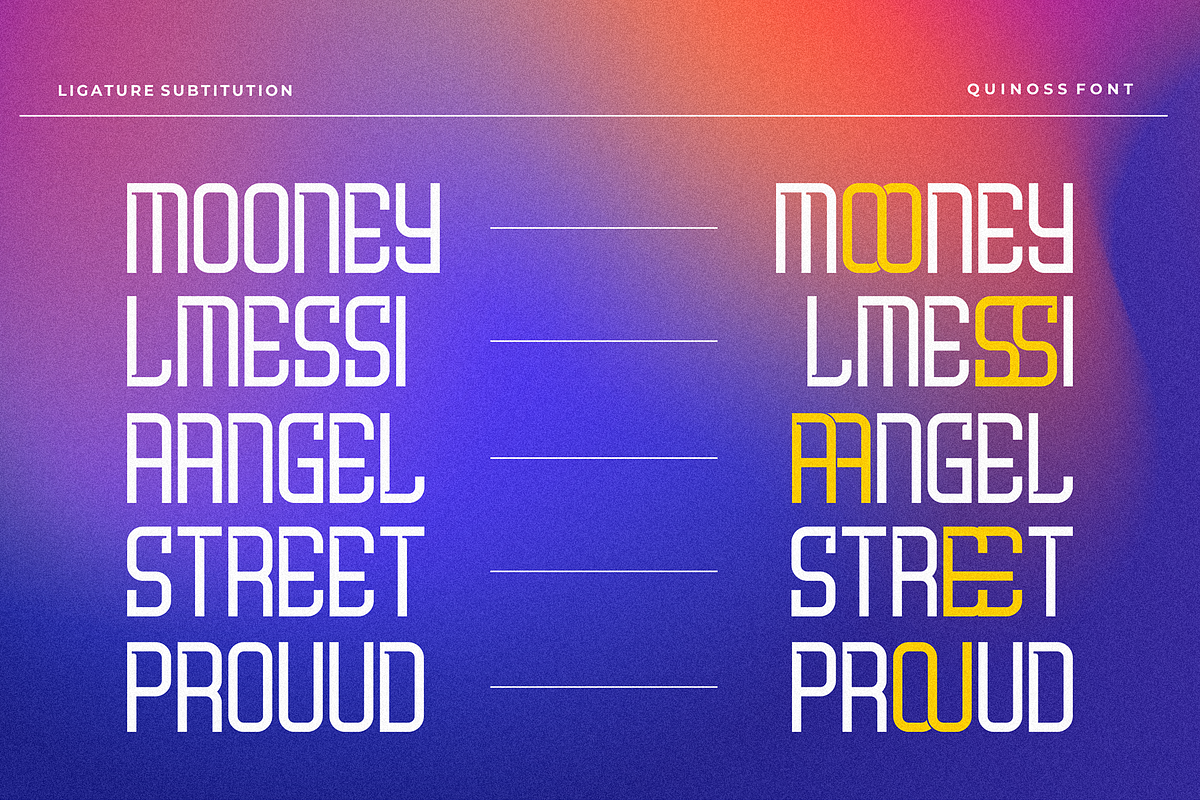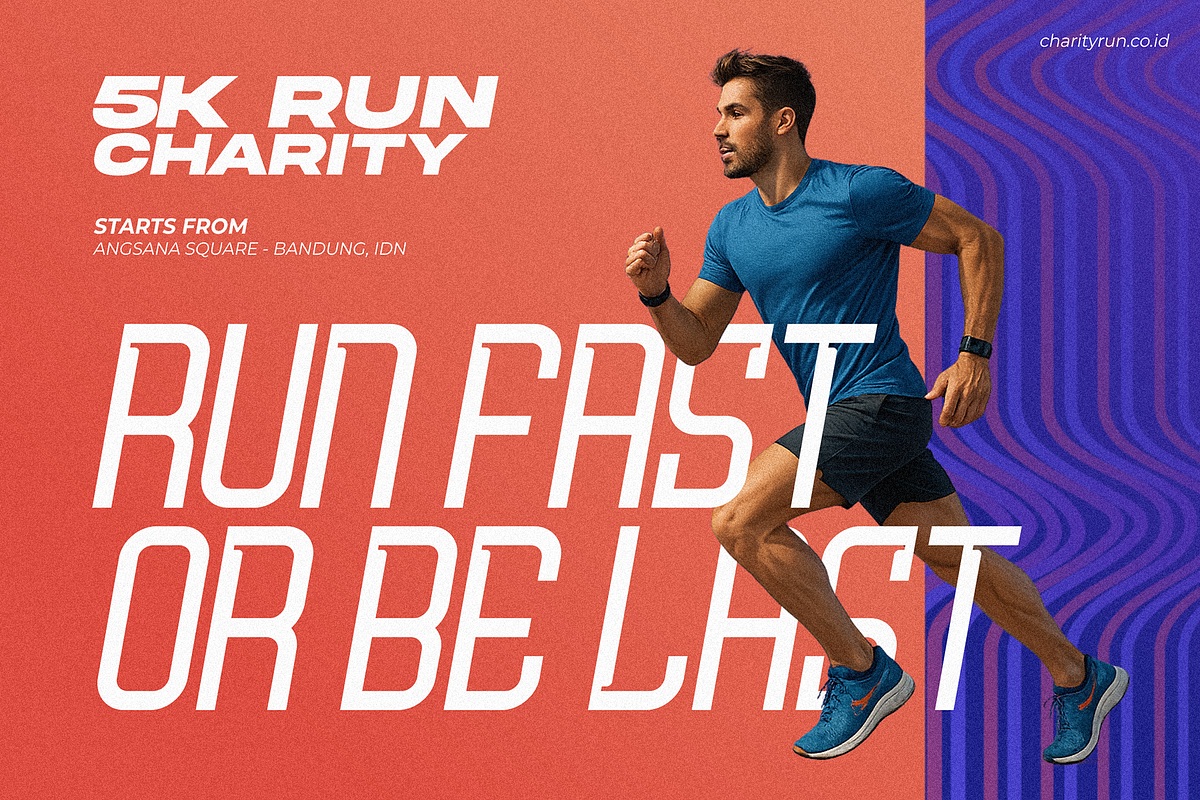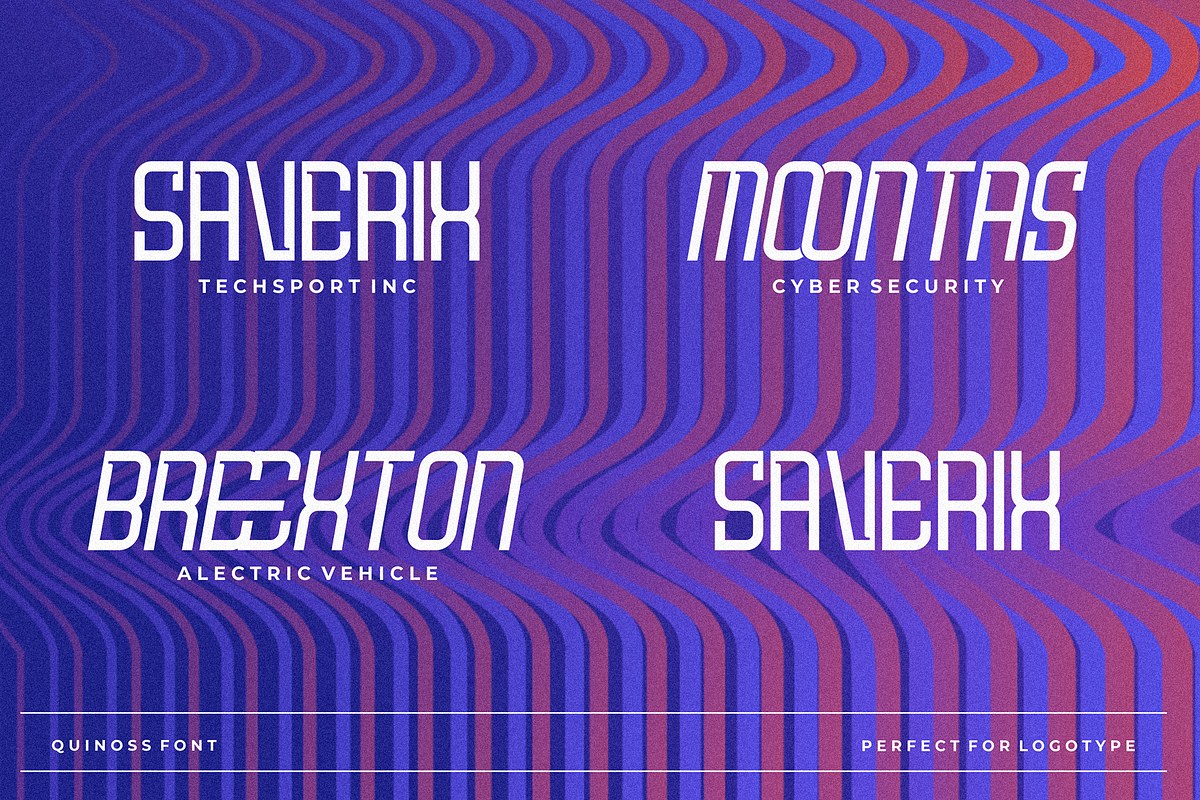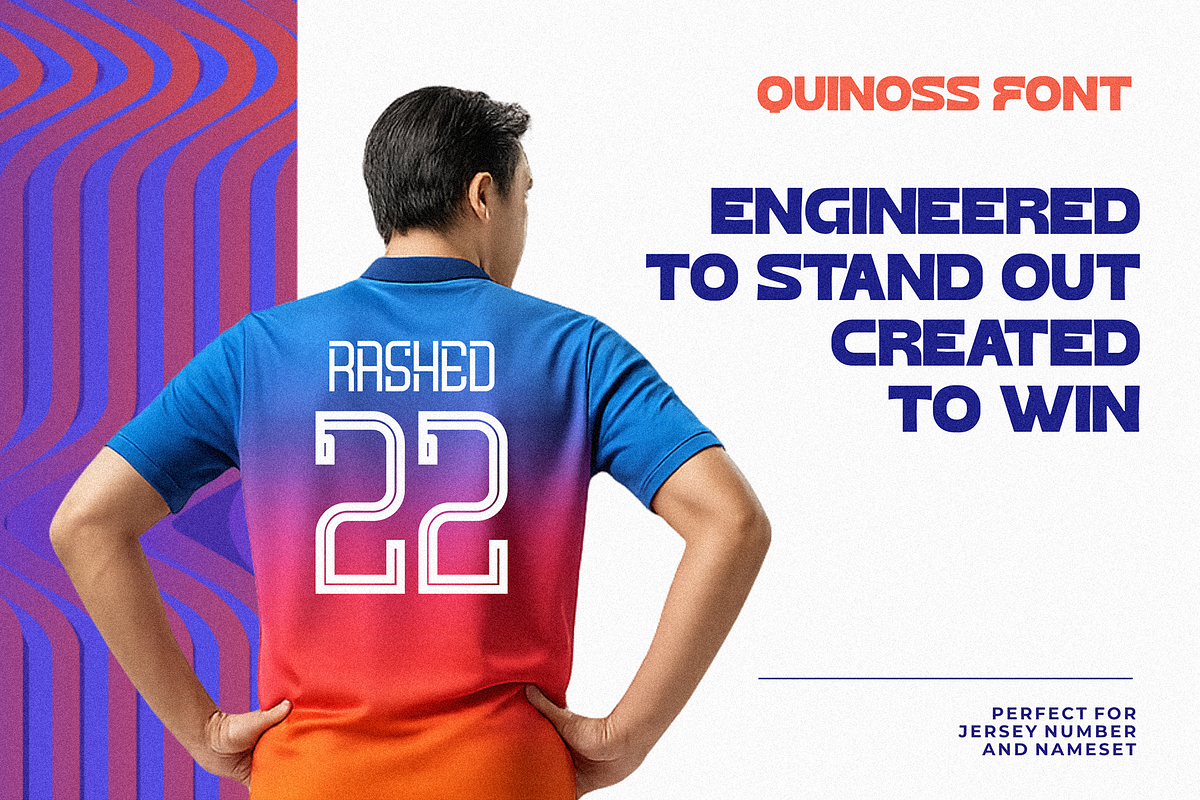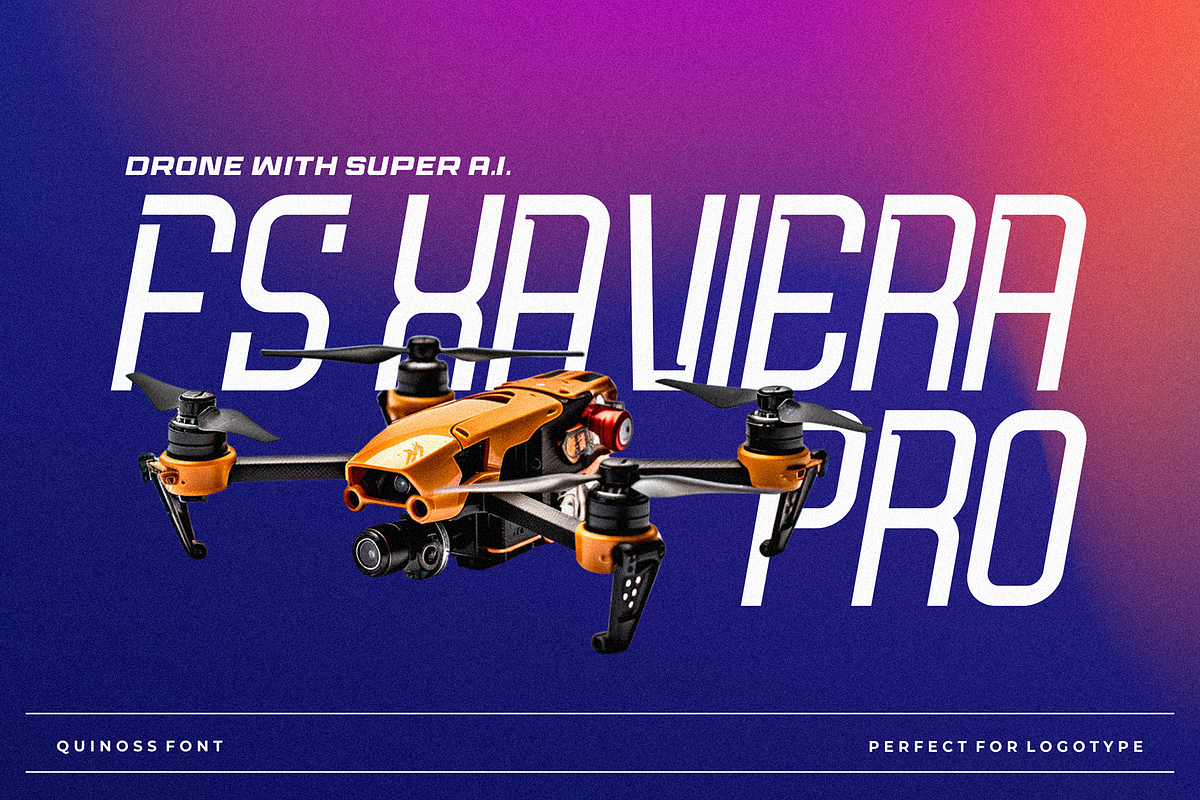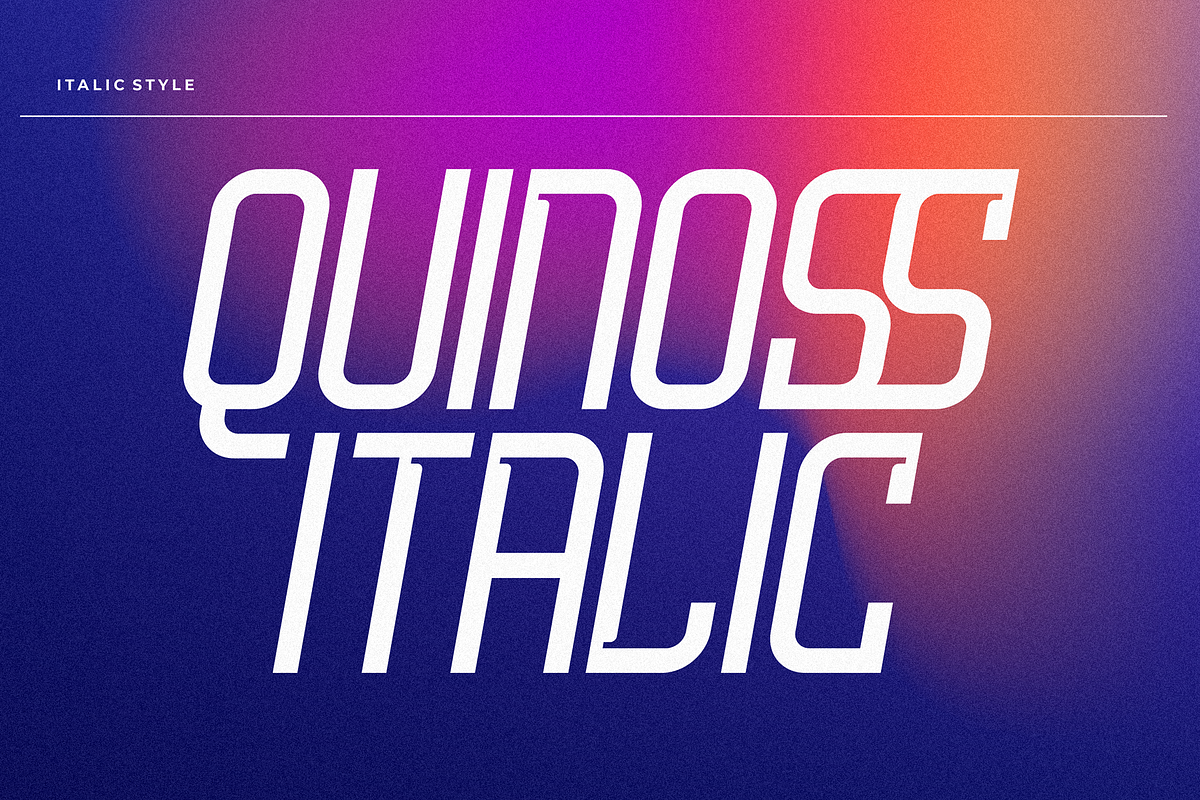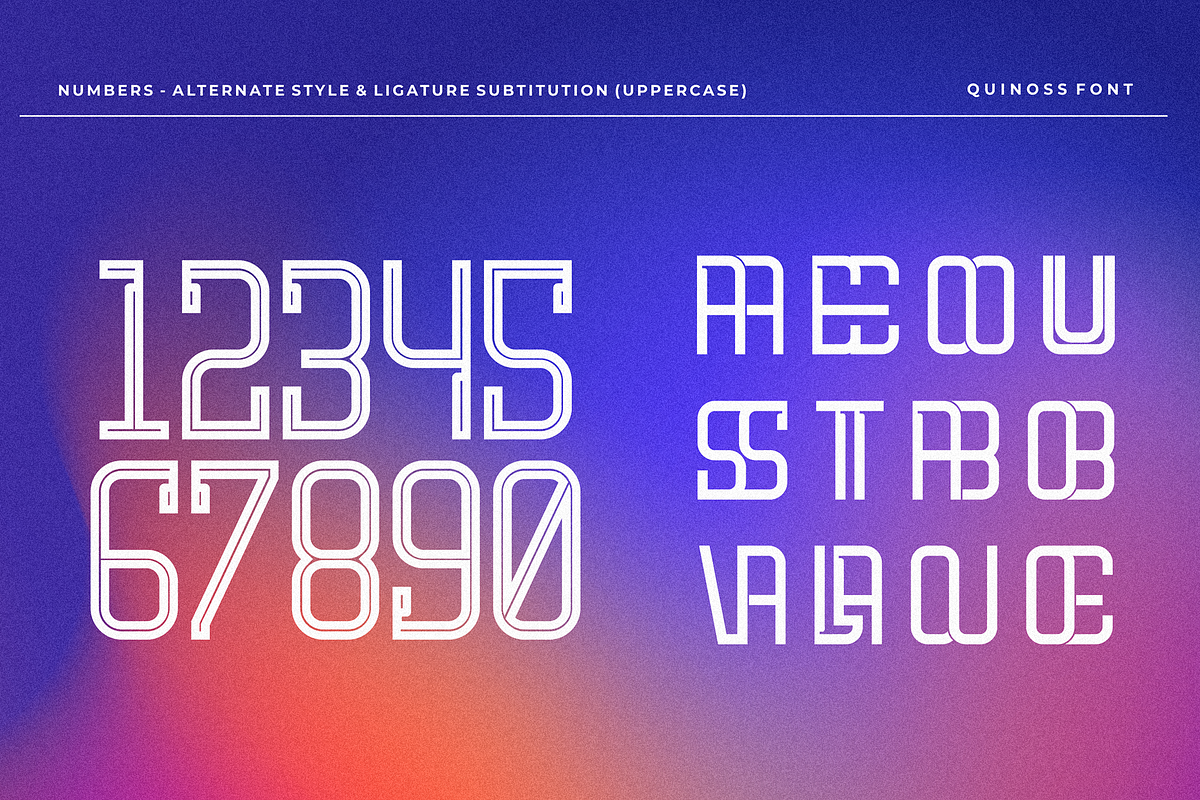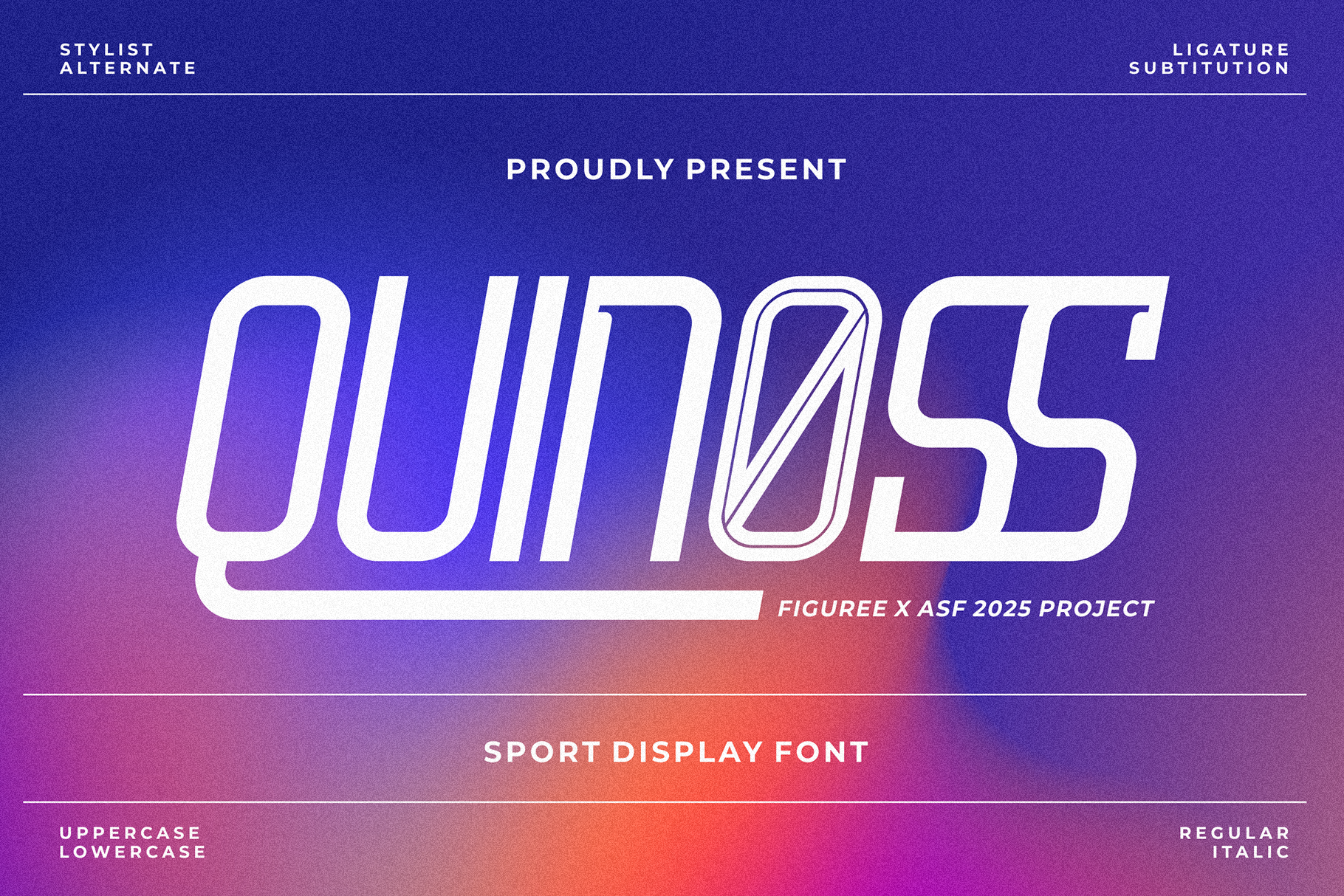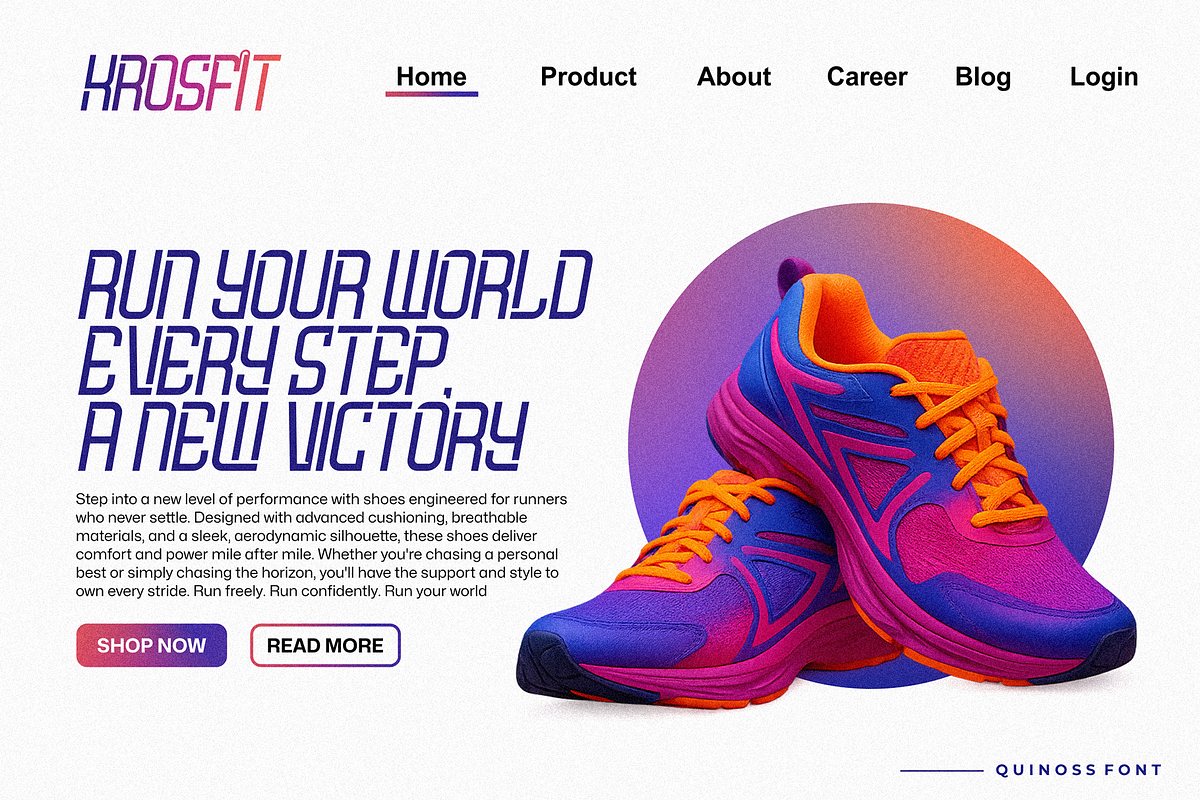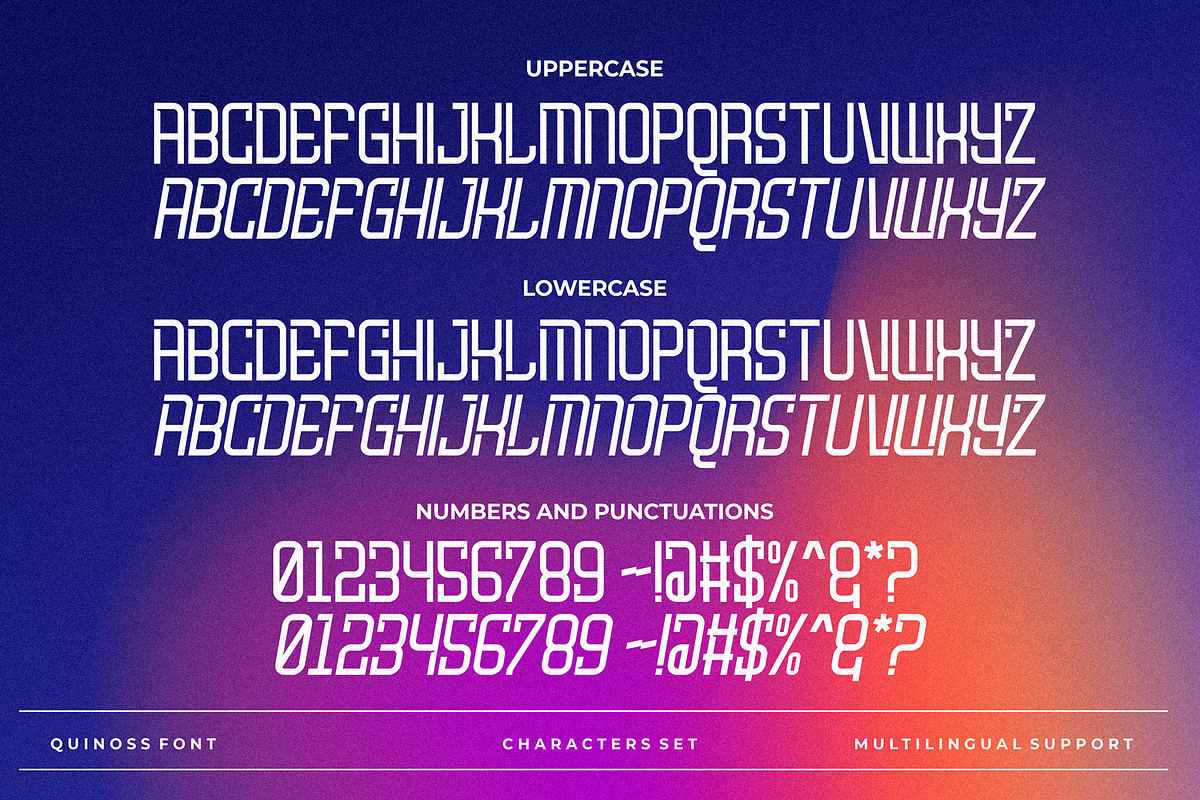
Quinoss - Modern Sport Font
Quinoss is a dynamic modern sports font that brings speed, power, and clarity to your designs. Designed with a sleek athletic vibe, Quinoss blends bold forms with refined versatility, making it perfect for everything from esports and racing titles to fitness branding and energetic packaging.
Whether you’re designing championship posters or action-packed logos, Quinoss delivers a strong visual punch with precise lines and aggressive style.
✦ Features:
- Uppercase & Lowercase: Balanced letterforms for both bold headlines and versatile subtext.
- Regular & Italic Styles: Choose between grounded power or forward-leaning momentum.
- Extra Ligatures: Built-in dynamic letter combos that bring natural flow to your text.
- Number Alternates: Unique numeric alternates add variety and futuristic character to your layouts.
- Full Punctuation & Multilingual Support: Ready to perform across any design context or language.
✦ Why You’ll Love Quinoss:
- Designed for Impact: Every title, logo, or headline feels energetic and competitive.
- Ideal for Sports Branding: From team jerseys to gym posters, Quinoss screams motion and motivation.
- Flexible Styling Options: Easily switch between regular and italic, or add alternates and ligatures for unique results.
- Polished & Professional: Clean enough for modern branding, bold sufficient for powerful visuals.
Quinoss isn’t just another sports font—it’s a design weapon engineered to energize your visuals with strength, style, and speed.